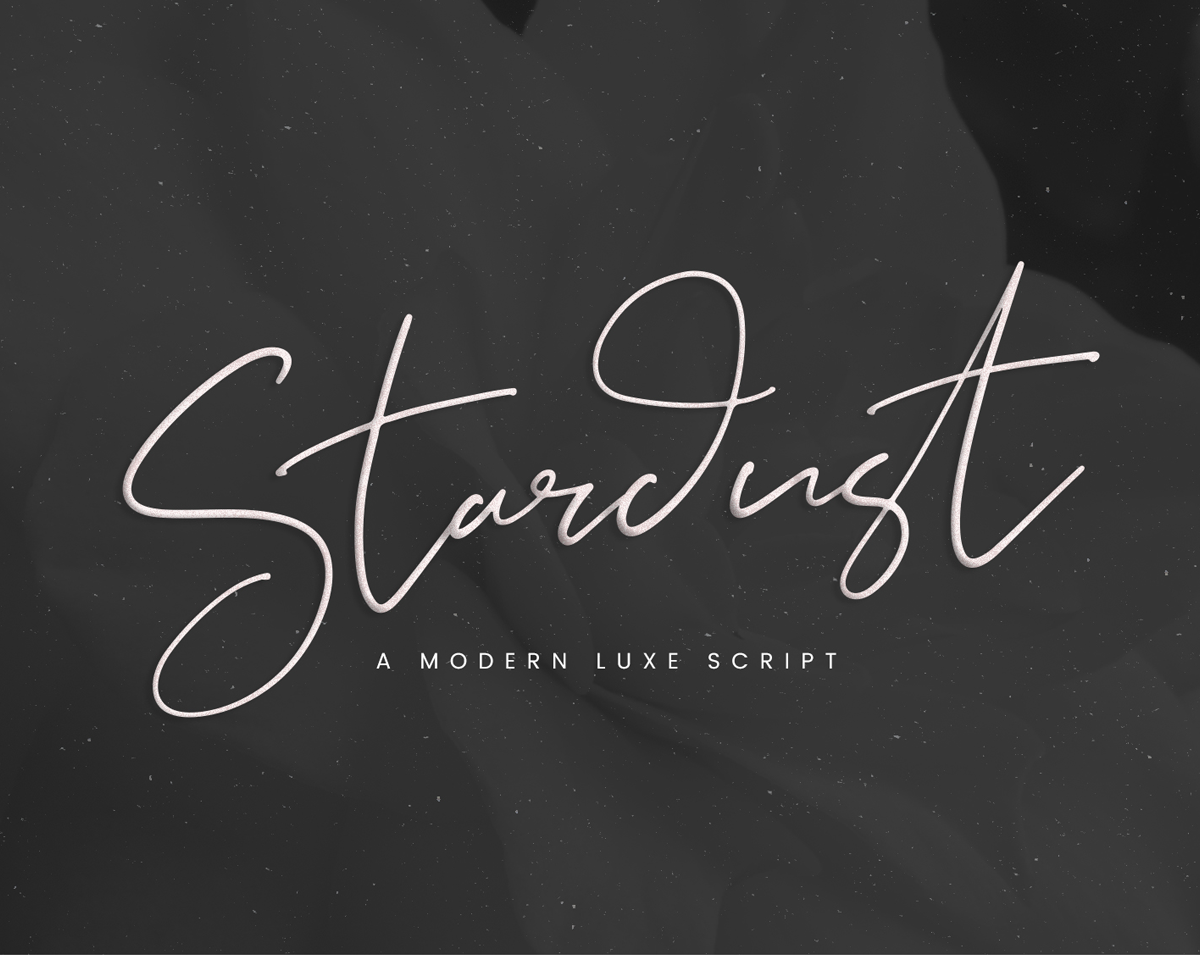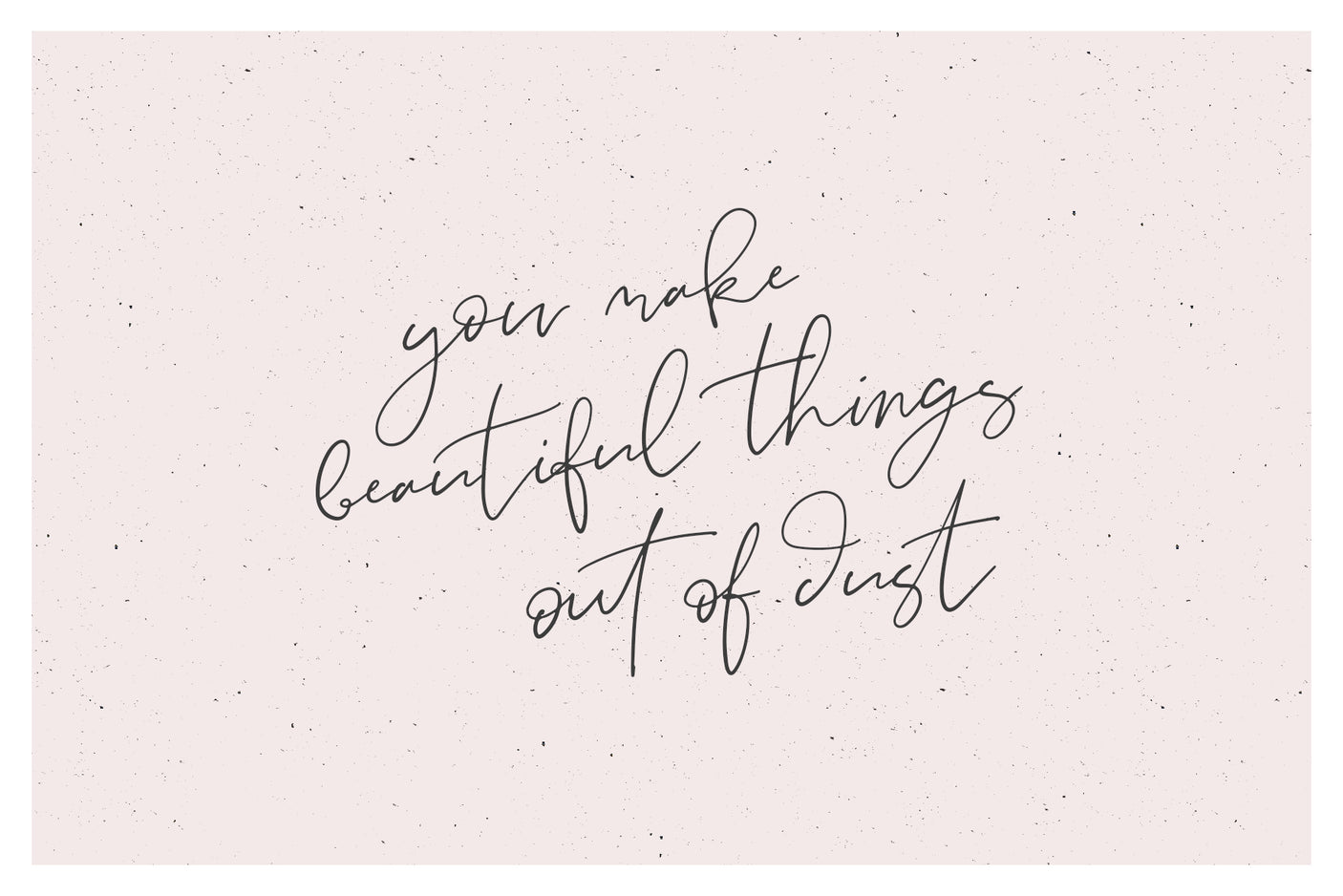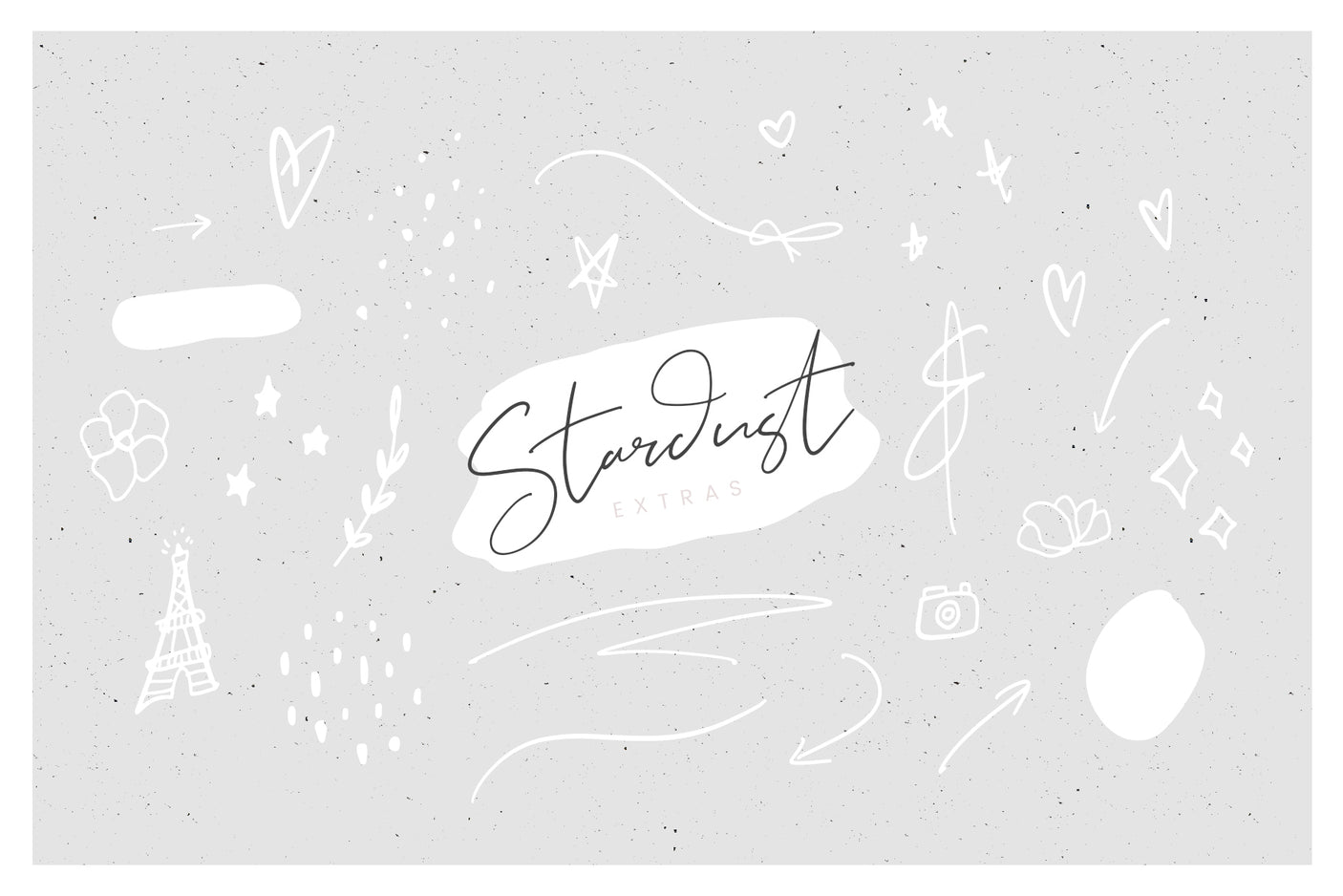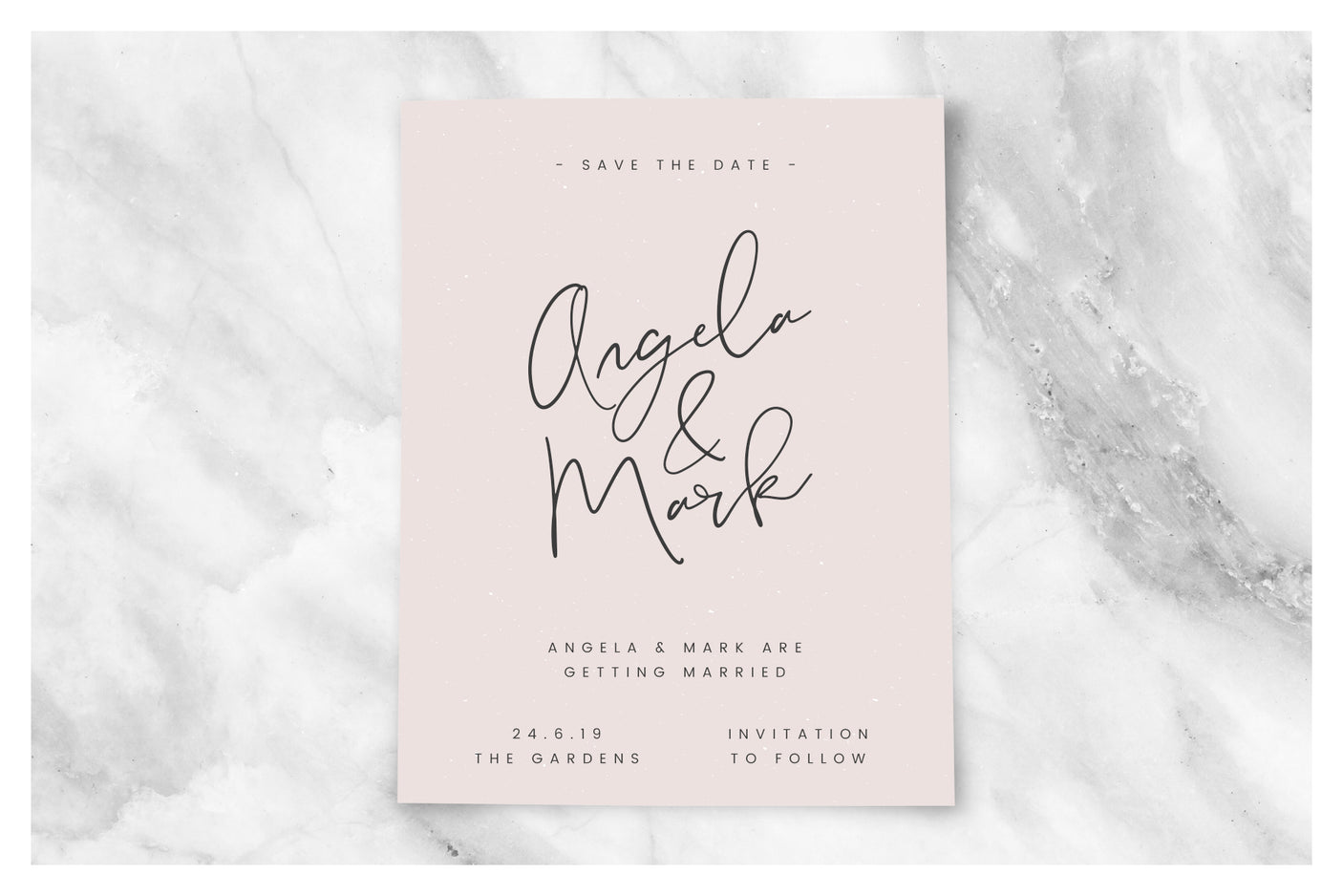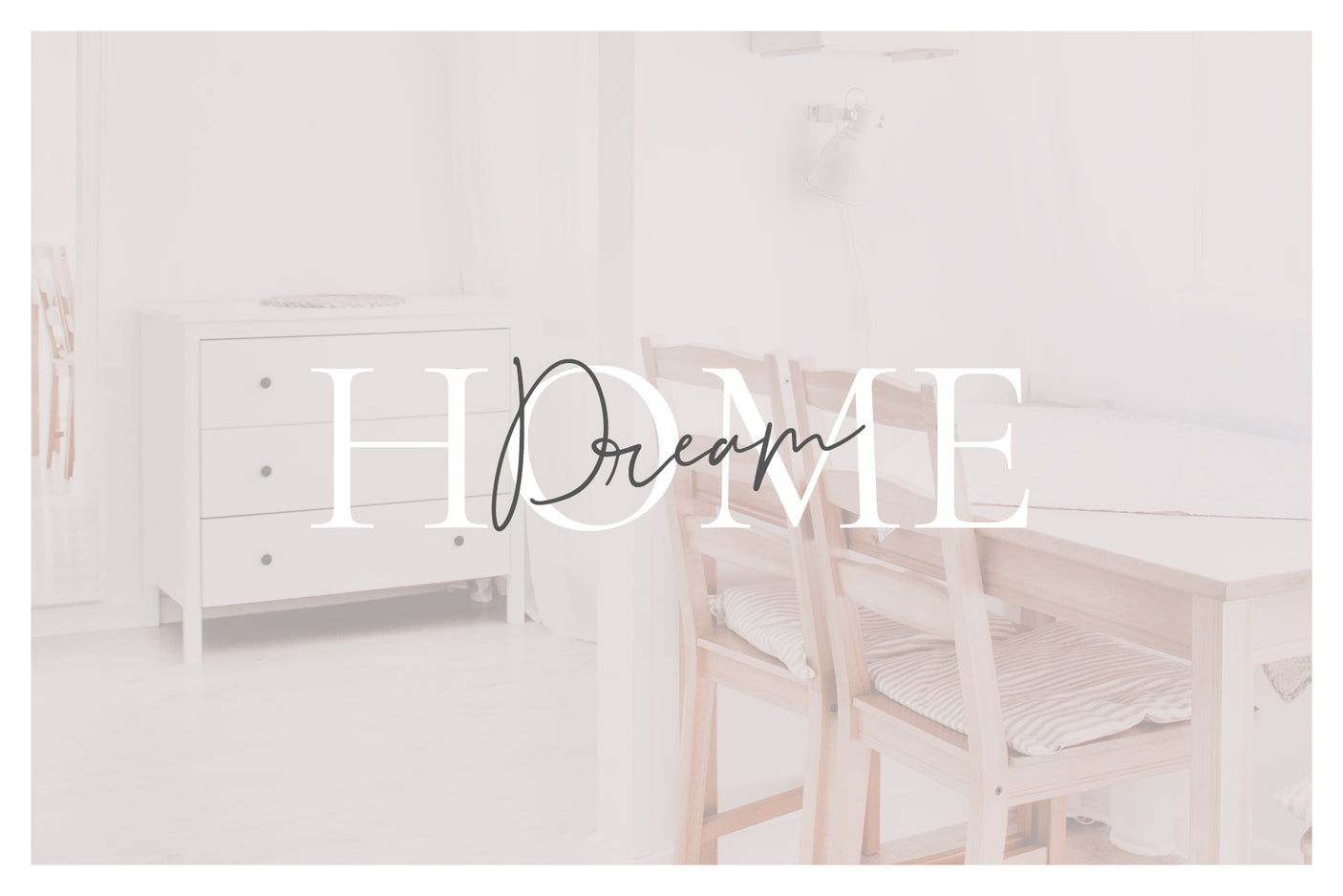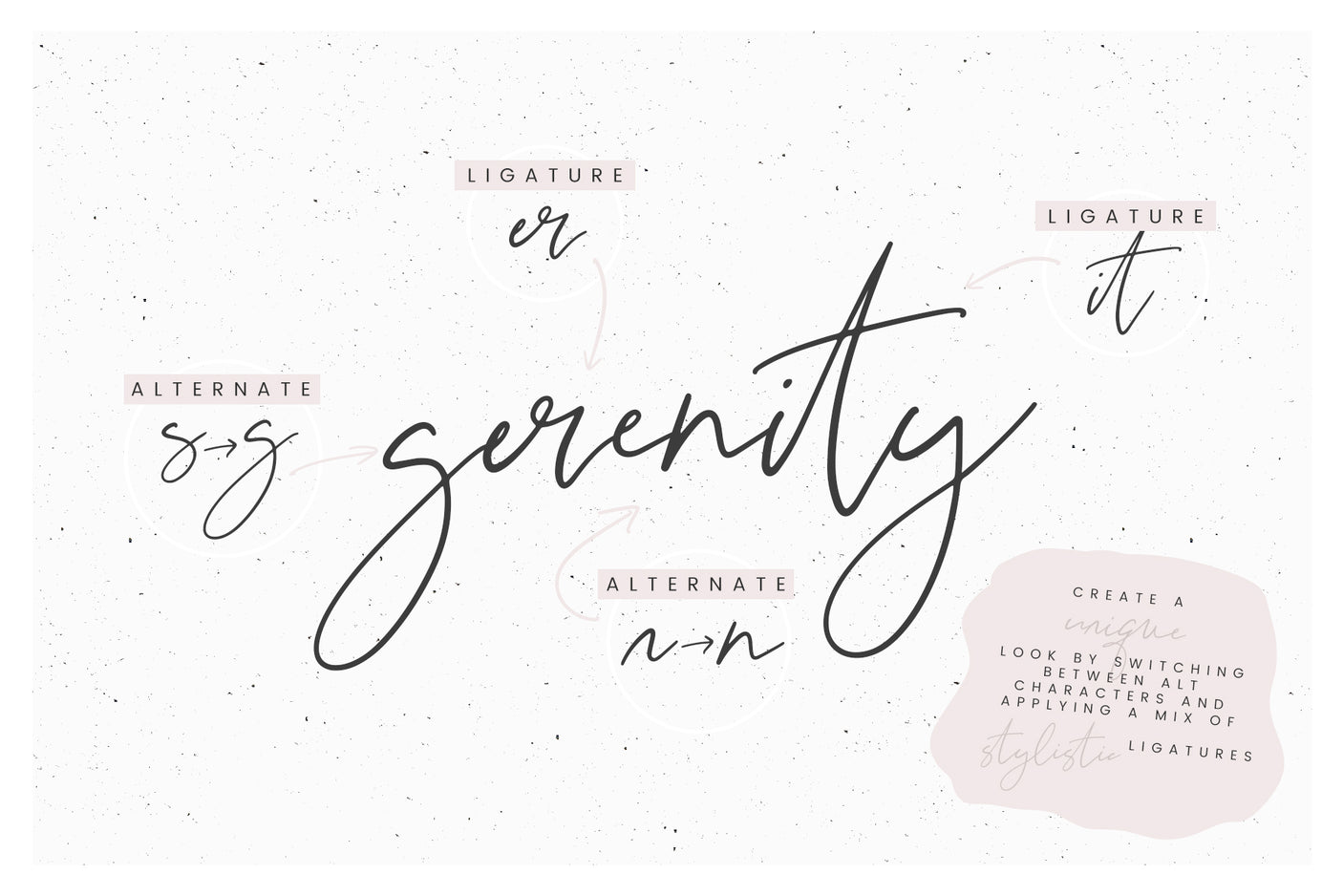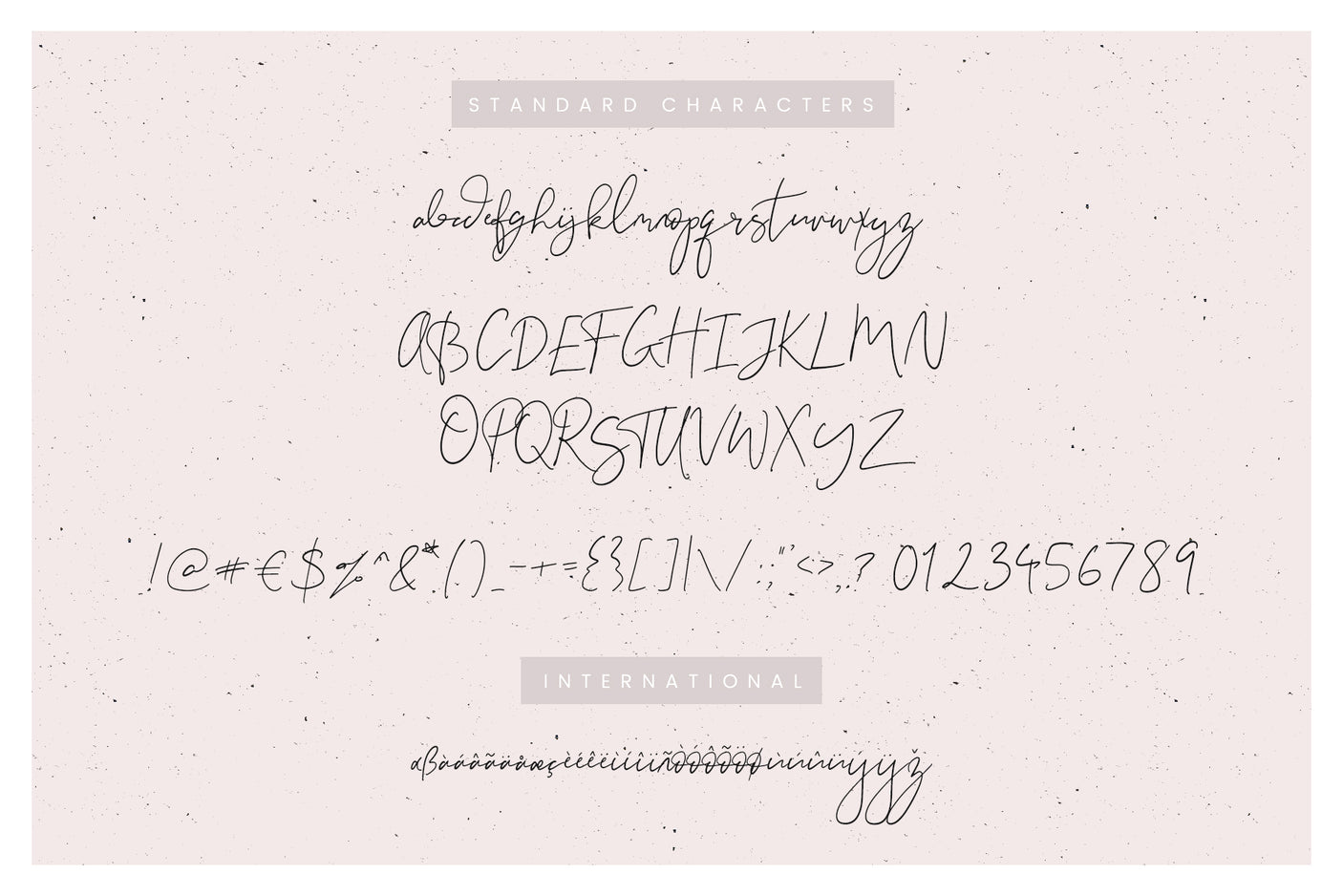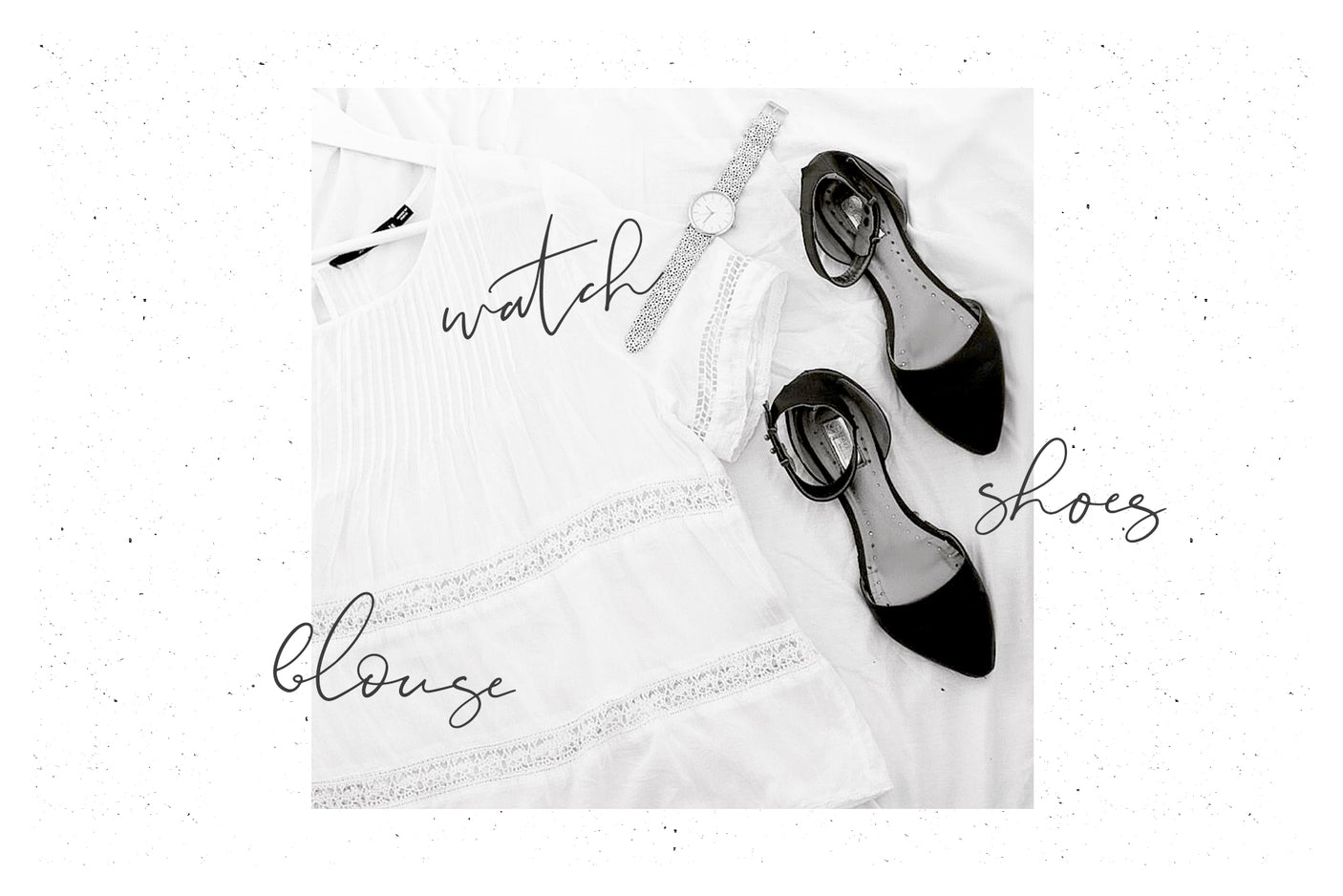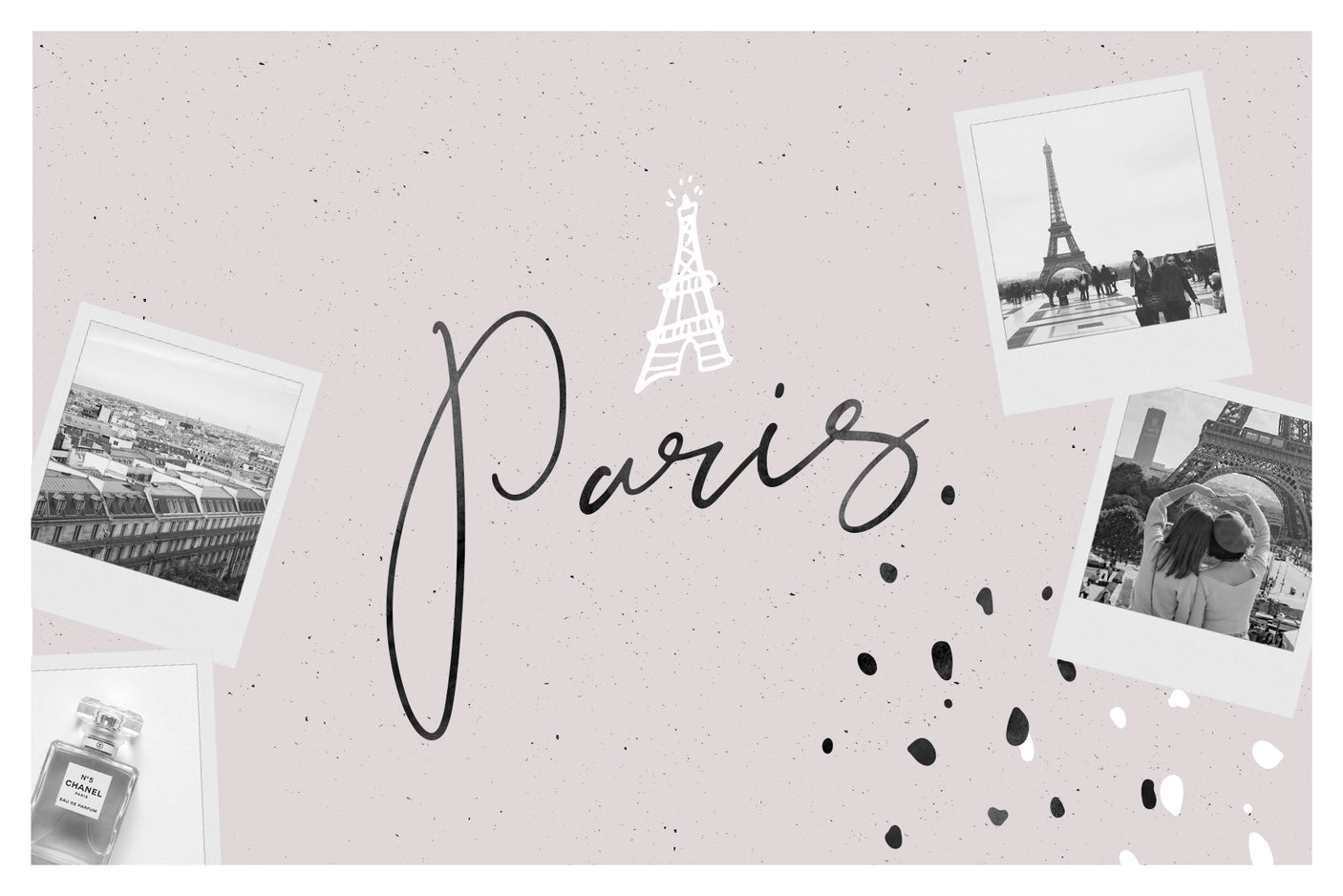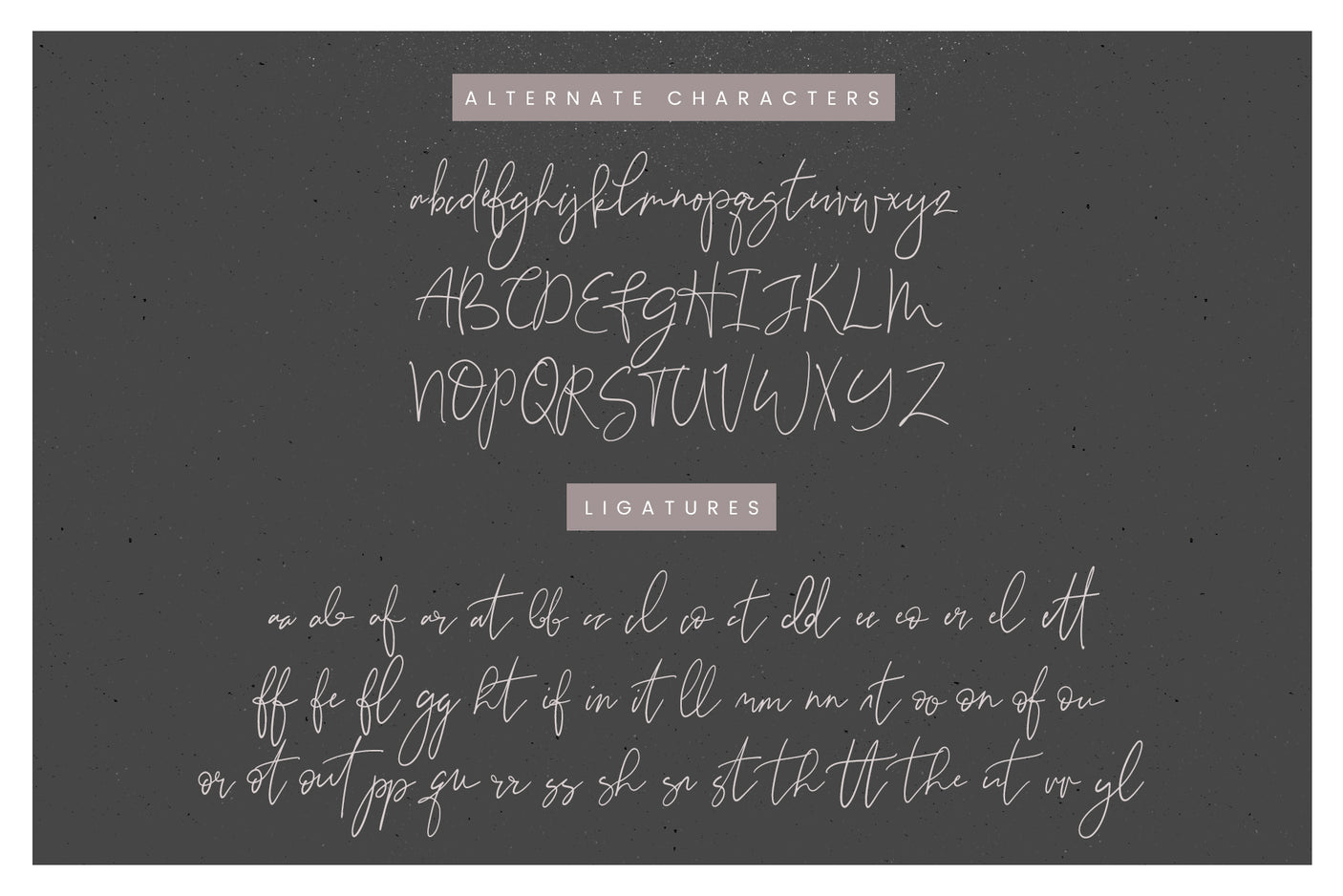
Stardust Font
Introducing Stardust, a modern luxe signature font designed for all kinds of stylish projects such as branding, logos, watermarks, quotes, Instagram stories, invitations, editorial, blogging and stationery.
Just like a ballpoint pen on paper, Stardust flows creatively from one letter to the next with a variety of ligatures, joining letter combinations in an effortless way. There’s also a selection of alternate characters included, so you can switch from one style of letter to the next to create a unique, handwritten look.
You’ll find a selection of illustrations included in the Stardust Extras font, just type from lowercase a to z to find what you need. There’s also 14 bonus Stardust Textures, the perfect speckled backgrounds for your creative work.